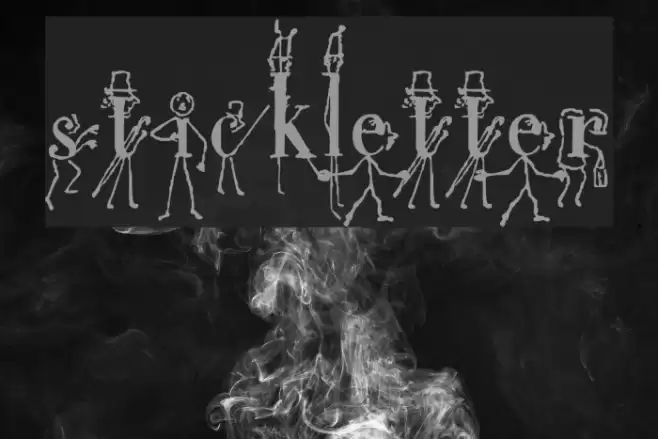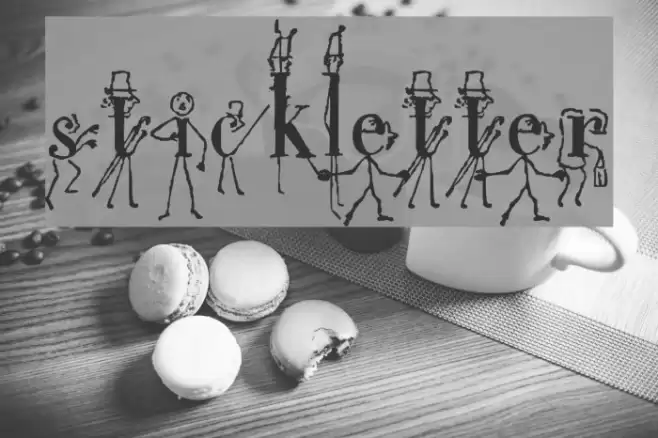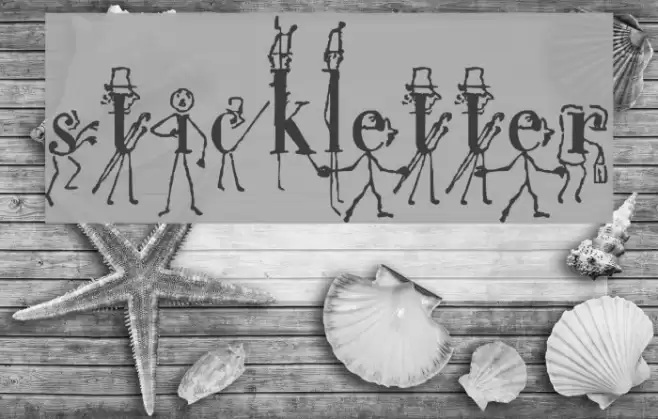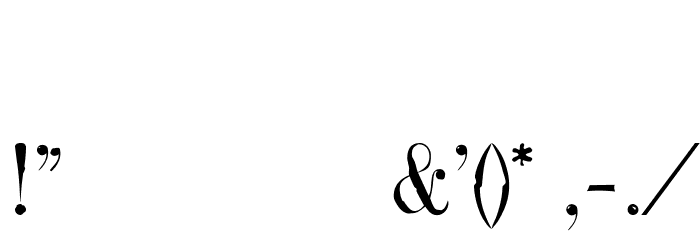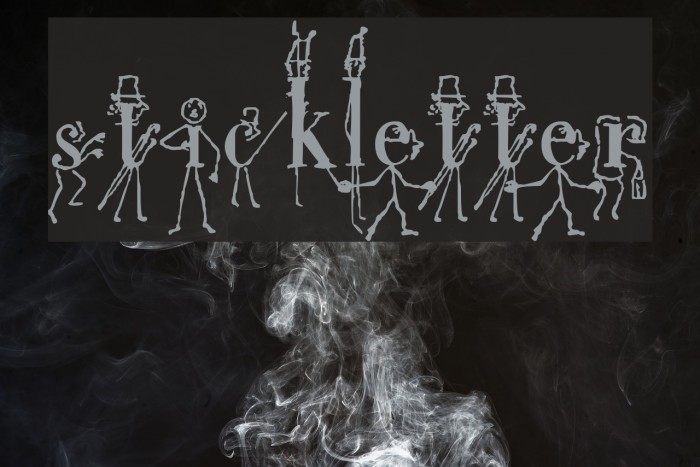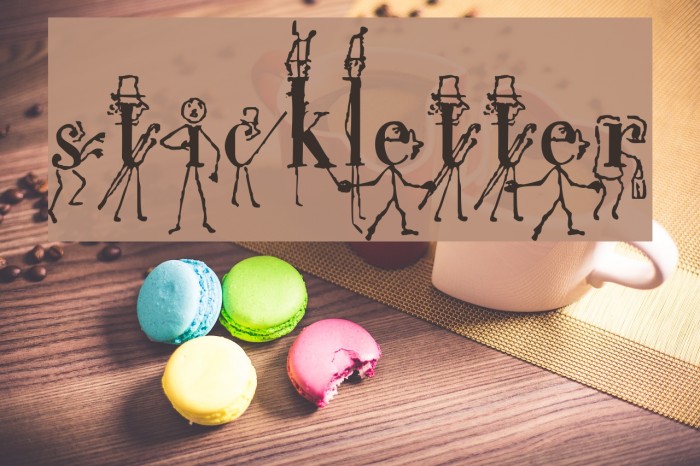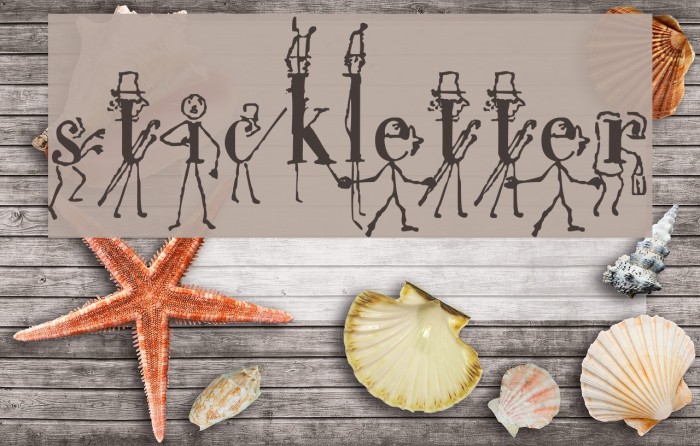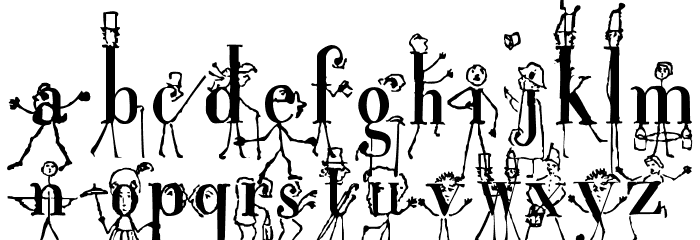
StickLetter Font
StickLetter Description
This playful and whimsical font features stick figures integrated into each letter, creating a unique and humorous design. Each character is creatively crafted with stick figures forming part of the letter structure, adding a lively and animated feel. The font maintains a consistent style across both uppercase and lowercase letters, as well as numbers and special characters. The stick figures are cleverly positioned to enhance the readability while providing a distinct artistic flair. This font is perfect for projects that require a fun and engaging visual element, making it suitable for children's books, playful branding, or creative posters.
A whimsical font with stick figures integrated into each character, offering a playful and artistic style from Decorative fonts.
- Proposed Projects: Ideal for children's books, playful branding, creative posters, and any project needing a fun visual element.
- Overall Style: Playful, Artistic